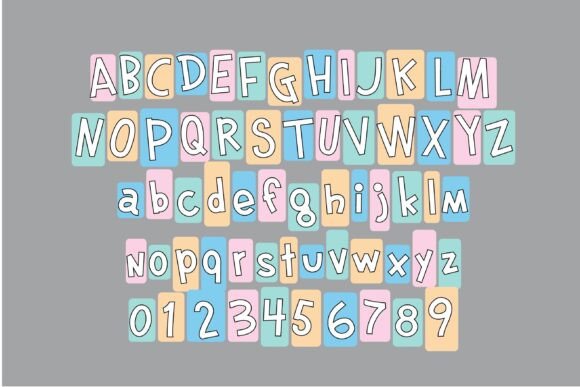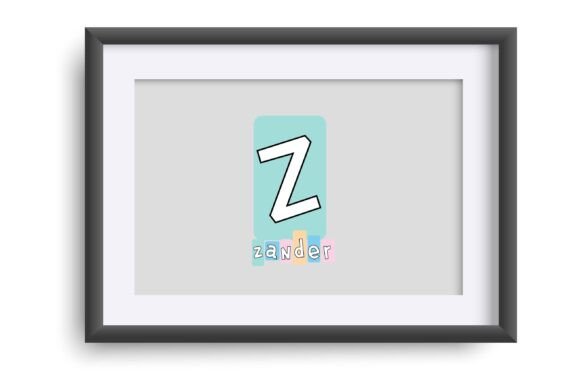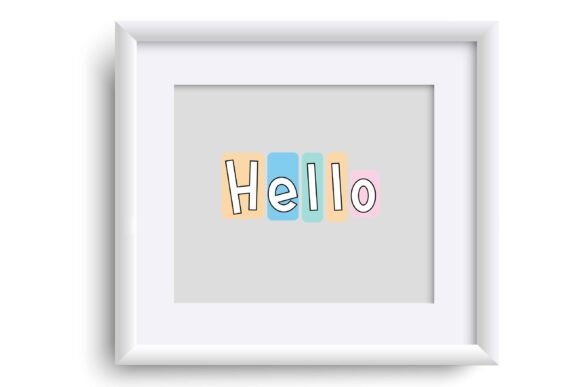
Spring Grudge Font
This full-color font features a very youthful and fun font placed on colorful, pastel blocks. There is an alt case of additional colors of each letter that you can access through your system or Silhouette’s glyph map. Access a bunny and chick by typing the greater than and less than glyphs.OpenType full-color (SVG) fonts are installed like any normal .otf font is installed. This usually happens via FontBook for Mac users or via your preferred font manager or Control Panel in Windows. Please note color fonts will show as black in non-compatible programs. They often show as black when choosing the font in the preview window in programs that support color fonts. You will know if your program can support color fonts when you type on the document and see them in color. Adobe products, Silhouette Studio, Quark, and Inkscape, amongst others, support full-color SVG fonts at this time.Full-color SVG fonts are the perfect way to add a touch of personality to your designs. With a full range of colors and styles to choose from, you can create anything from simple text logos to complex illustrations. Plus, SVG fonts are vector-based, so they can be scaled to any size without losing quality.